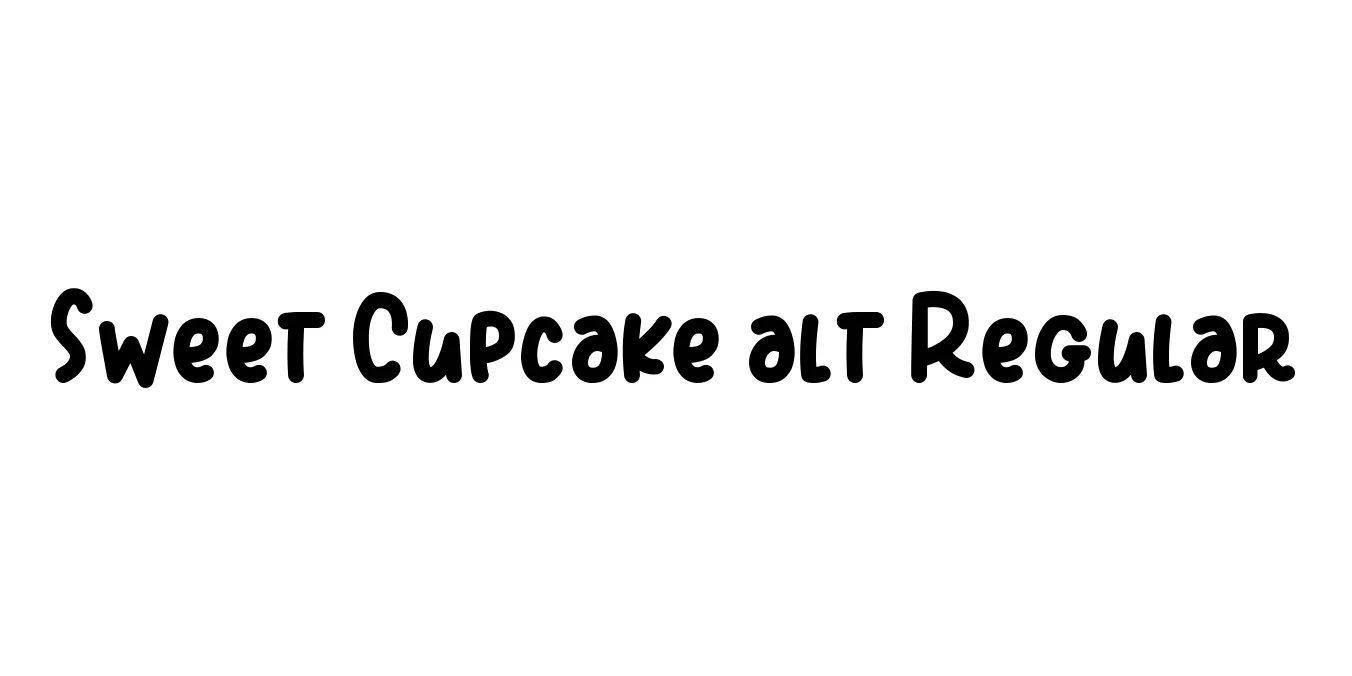
Sweet Cupcake alt Regular
Designed by Rantautype
Sweet Cupcake alt Regular is a charming and whimsical display font designed to evoke feelings of warmth, sweetness, and celebration. Developed as a decorative script, it features a bouncy baseline and fluid, hand-drawn strokes that mimic the artistic flow of handwritten notes. The 'alt' version of this typeface provides designers with refined character alternates and stylistic flourishes, making it a versatile tool for creating unique typographic compositions that stand out in crowded visual spaces.
This font has gained significant popularity in the crafting and event planning industries due to its high legibility paired with its festive aesthetic. It is frequently employed in digital scrapbooking, greeting card design, and social media graphics where a personal touch is required. Its playful personality makes it an excellent choice for any project that requires a touch of handmade elegance, specifically catering to themes of joy, childhood, and culinary arts.
Sweet Cupcake alt Regular Best Uses
Ideal for logos, menus, and packaging for cake shops, cafes, and dessert parlors.
Perfect for creating friendly and inviting birthday party invites or baby shower stationery.
Great for creating engaging, approachable quotes and friendly Instagram stories.
Widely used for vinyl cutting projects, DIY stickers, and custom apparel designs.